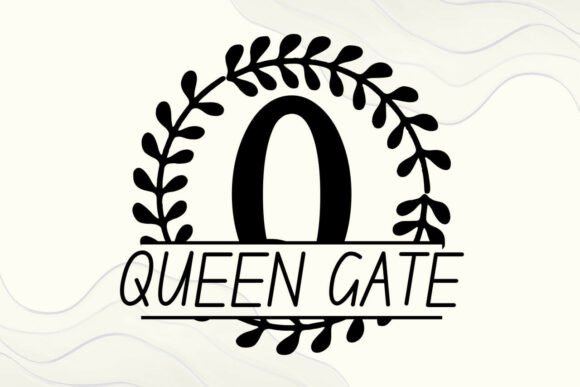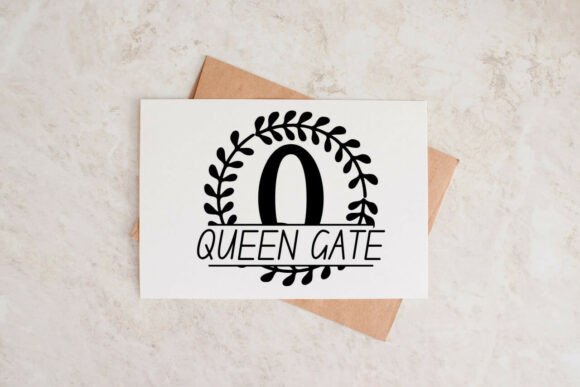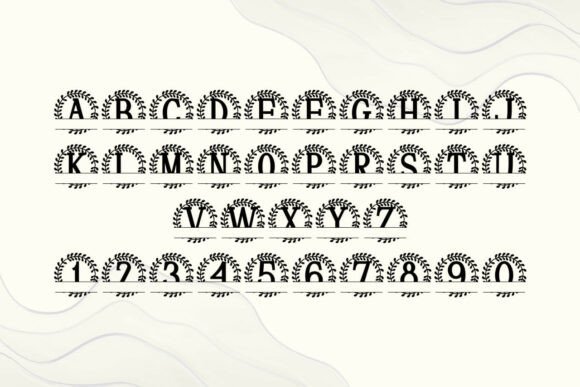
Introduction to Ivorygate Split Monogram Font
Meet Ivorygate Split Monogram Font turns any initial into a refined, name-ready emblem in seconds.
👤 Author Sharon ( DmStudio )
Calm, confident letterforms carry a luxurious feel, while a precise horizontal split creates natural space for names, dates, or short words Because spacing stays even and counters remain open, designs look polished on tiny tags, door hangers, tumblers, ornaments, menus, and wall art.
Key Features of Ivorygate Split Monogram Font
Why Choose Ivorygate Split Monogram Font?